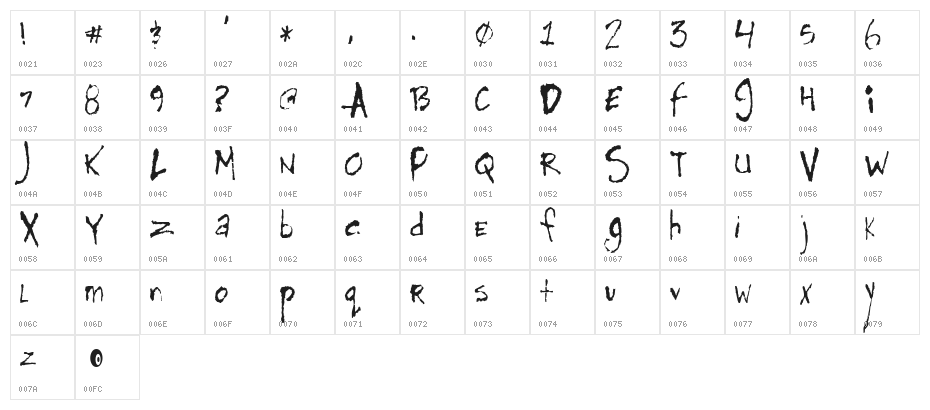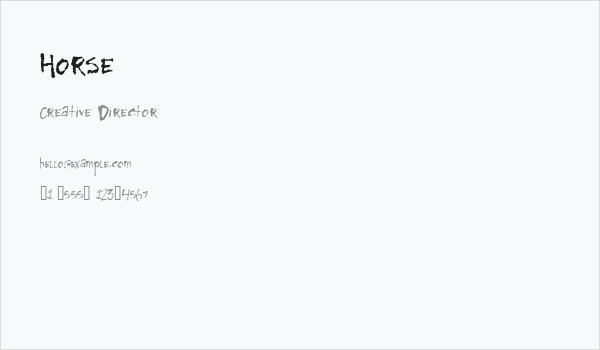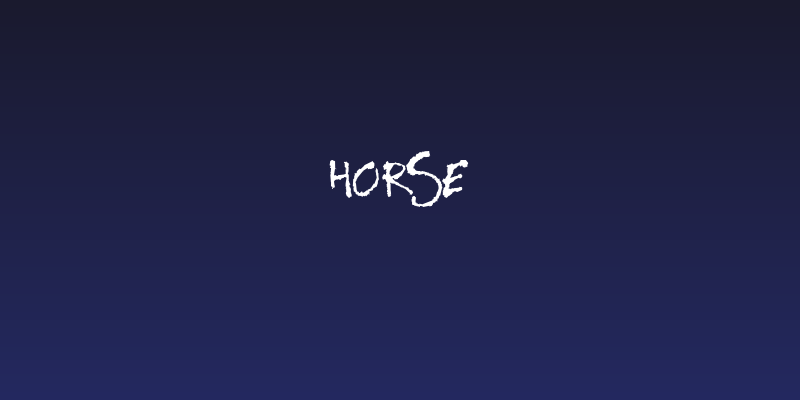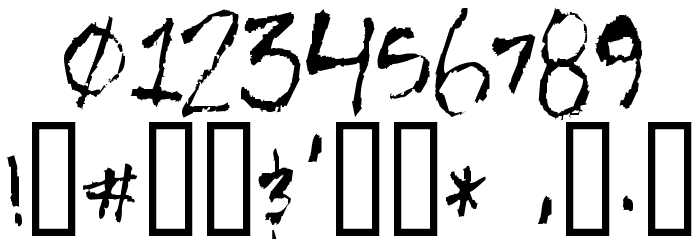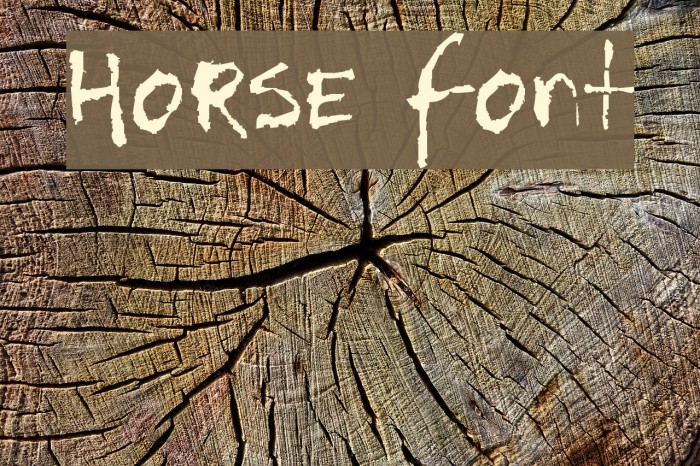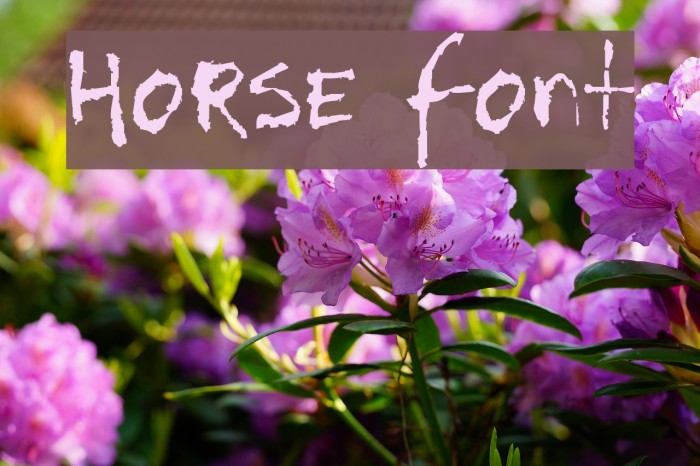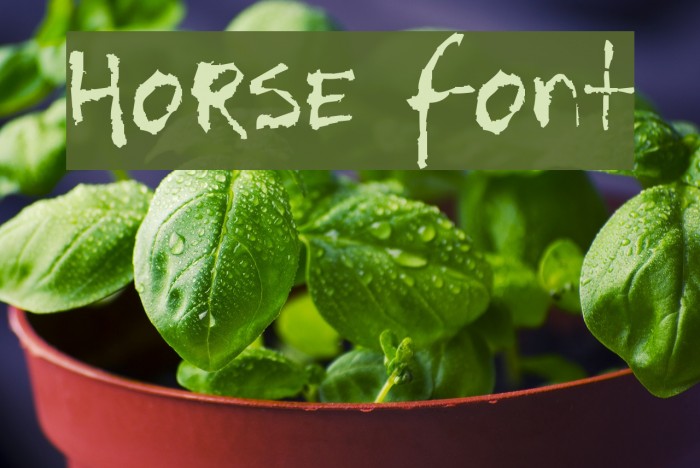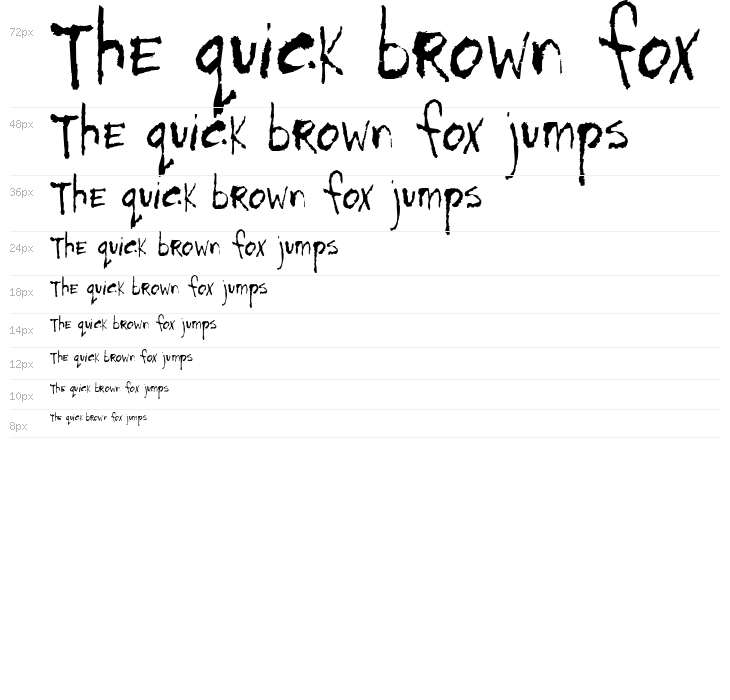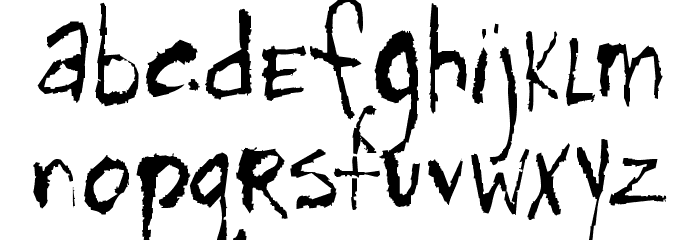
Horse Font
Horse Description
This font exhibits a rugged, hand-drawn style with a distinctly organic feel. The letters are uneven and irregular, giving them a raw and expressive character. The strokes are bold and vary in thickness, adding to the font's dynamic and energetic appearance. The uppercase and lowercase letters maintain a consistent style, with a playful yet edgy vibe. Numbers and special characters follow the same aesthetic, ensuring a cohesive look across all text elements. This font is ideal for projects that require a touch of individuality and creativity.
| Proposed Projects | Ideal for artistic projects, album covers, posters, and branding that seeks a unique and edgy look. |